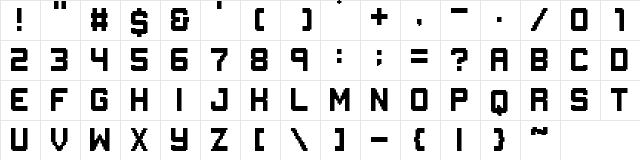
GAMEPLAY 1987 Regular
| Designer | GeronimoFonts |
GAMEPLAY 1987 takes a measured approach to typography — its balanced proportions and neutral character make it a reliable workhorse for both digital and print work.